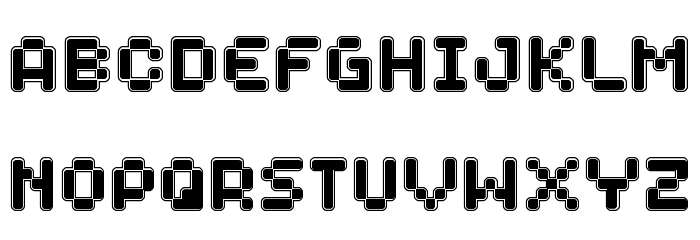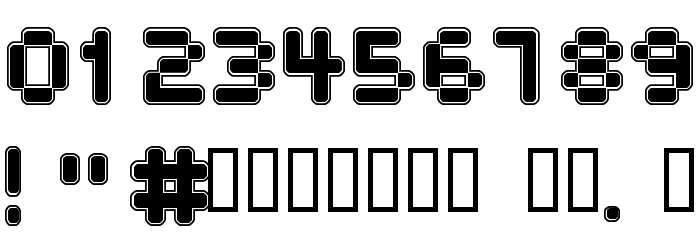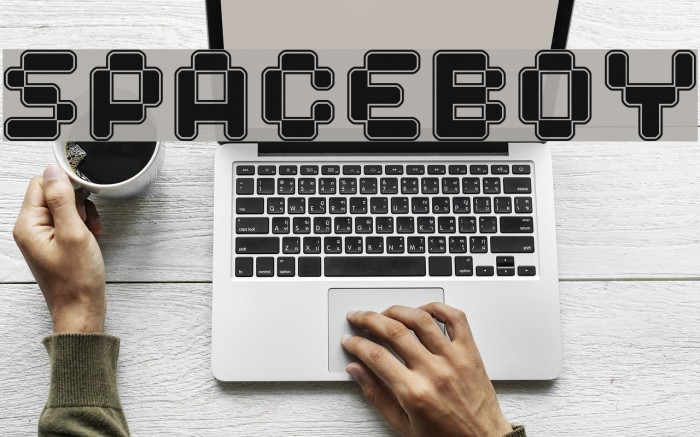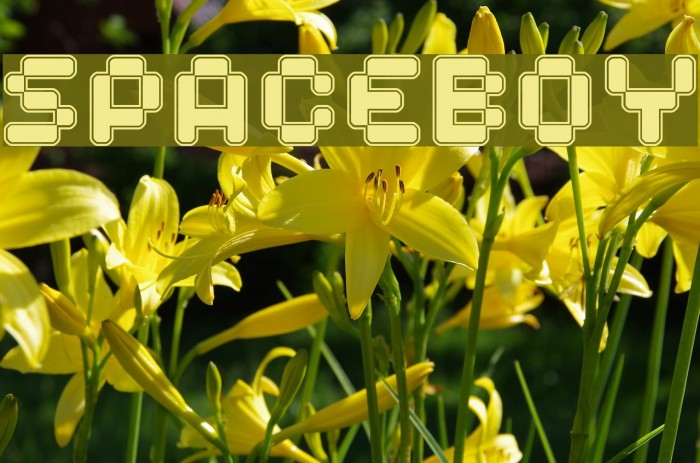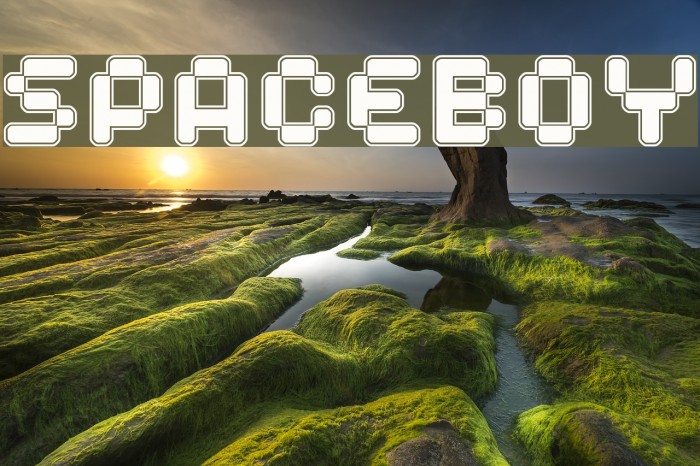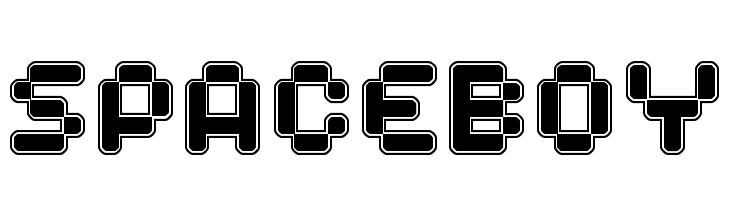
Spaceboy Font
This font features a futuristic and geometric design, characterized by bold, blocky letters with rounded edges and a double-line effect. Each character is outlined, creating a striking contrast between the inner and outer lines. The uppercase and lowercase letters maintain a consistent style, with a uniform height and width that gives the font a monospaced appearance. The numbers and special characters follow the same design principles, ensuring a cohesive look across all elements. The font's unique style makes it ideal for projects that require a modern and tech-inspired aesthetic.
A futuristic, geometric font with bold, outlined characters and a double-line effect.
- Proposed Projects: Ideal for sci-fi themed designs, tech branding, video game titles, and futuristic posters.